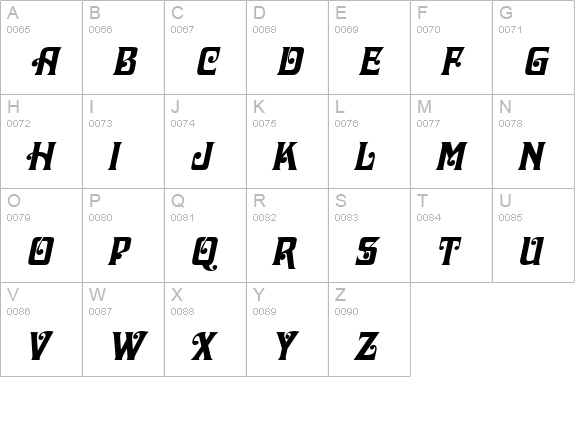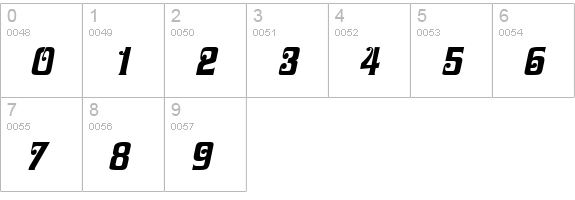
Dascha Italic Font Details
Dascha Italic is a distinctive, italic variant in the Dascha typeface family \xE2\x80\x94 well suited to design and typography projects.